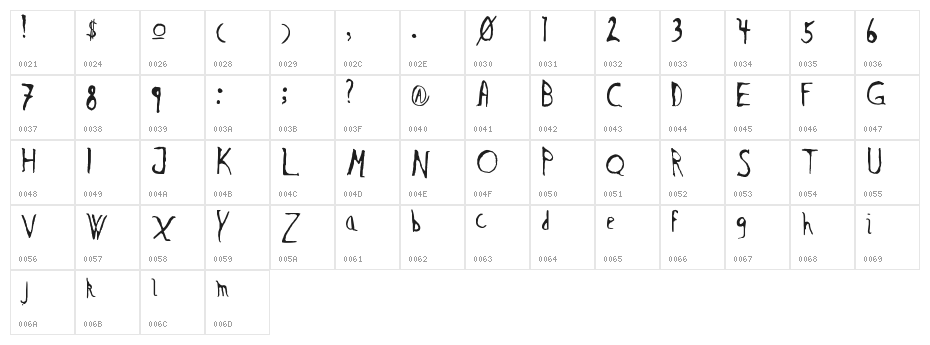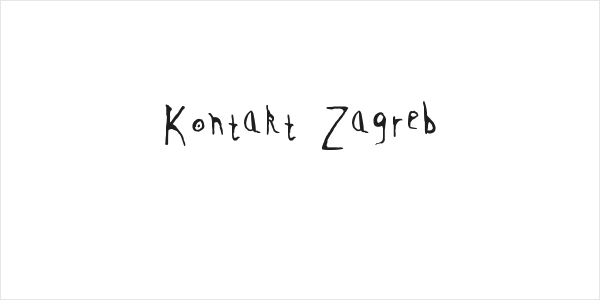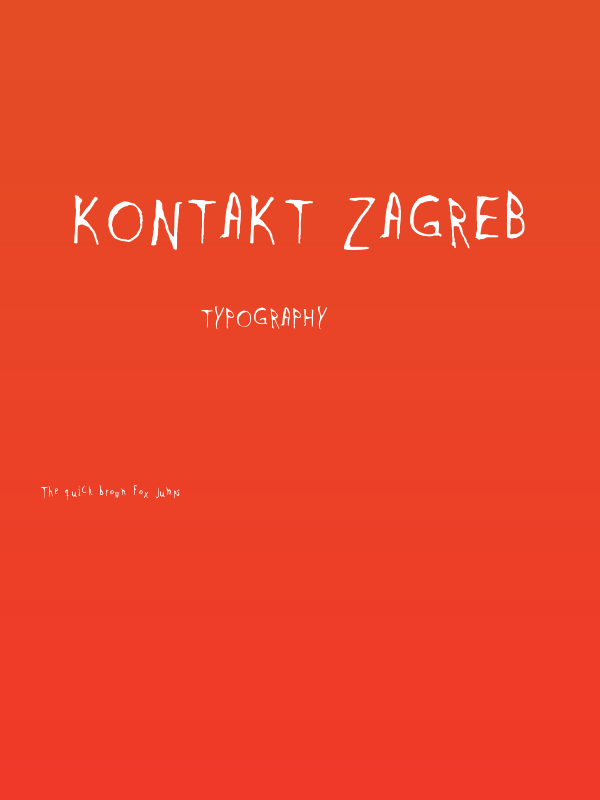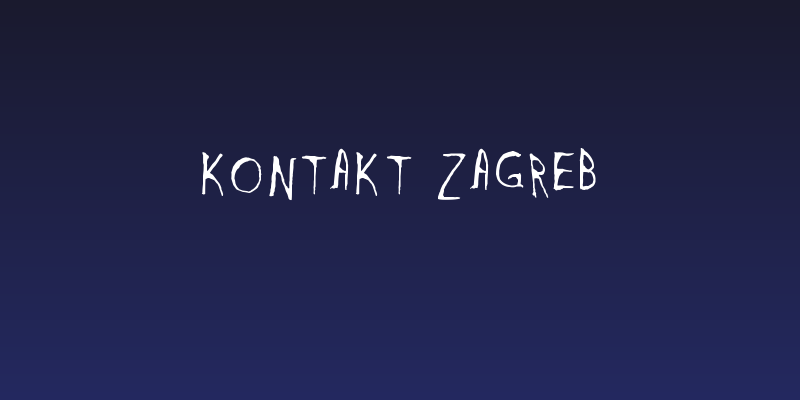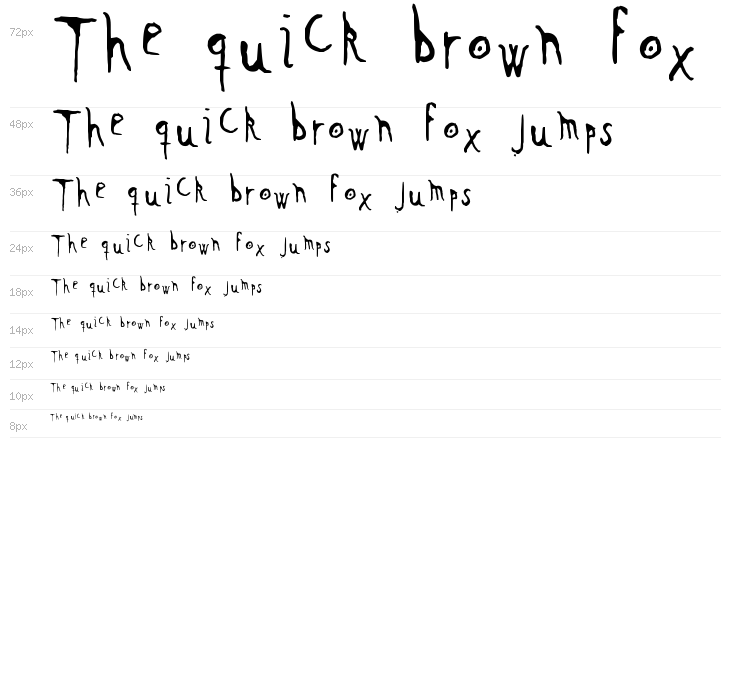
Kontakt Zagreb Font
Kontakt Zagreb Description
This font features a unique, hand-drawn style with irregular, organic shapes that give it a playful and artistic appearance. The uppercase letters are bold and slightly distorted, with varying stroke widths that add to its handcrafted feel. The lowercase letters maintain this whimsical style, with some characters featuring distinctive loops and curves. The numbers and special characters are equally expressive, maintaining the overall quirky aesthetic. This font's uneven baseline and varied character sizes contribute to its dynamic and informal look, making it ideal for creative projects.
| Use Case | Logos, Posters, Artistic projects |
| Proposed Projects | Ideal for creative projects such as children's books, artistic posters, and unique branding materials. |